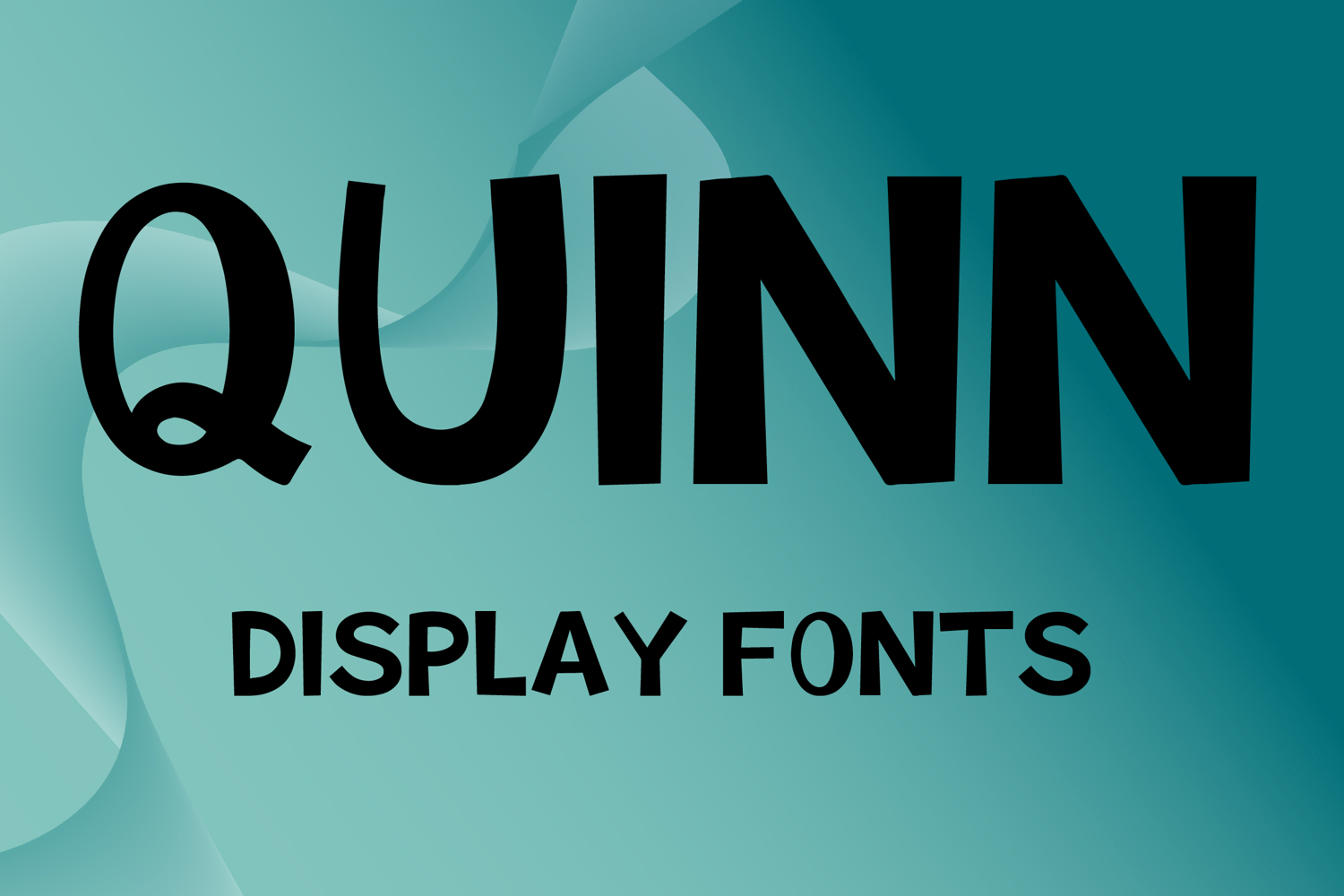
QUINN
QUINN is a bold display font with a tall modern style and clean geometric character. Its uppercase letterforms feature strong vertical strokes, smooth rounded curves, and slightly handcrafted proportions that create a sleek, confident, and eye-catching look. Designed with uppercase letters A–Z and numbers 0–9, QUINN is perfect for branding, posters, packaging, logos, headlines, and social media graphics that need a stylish and memorable statement